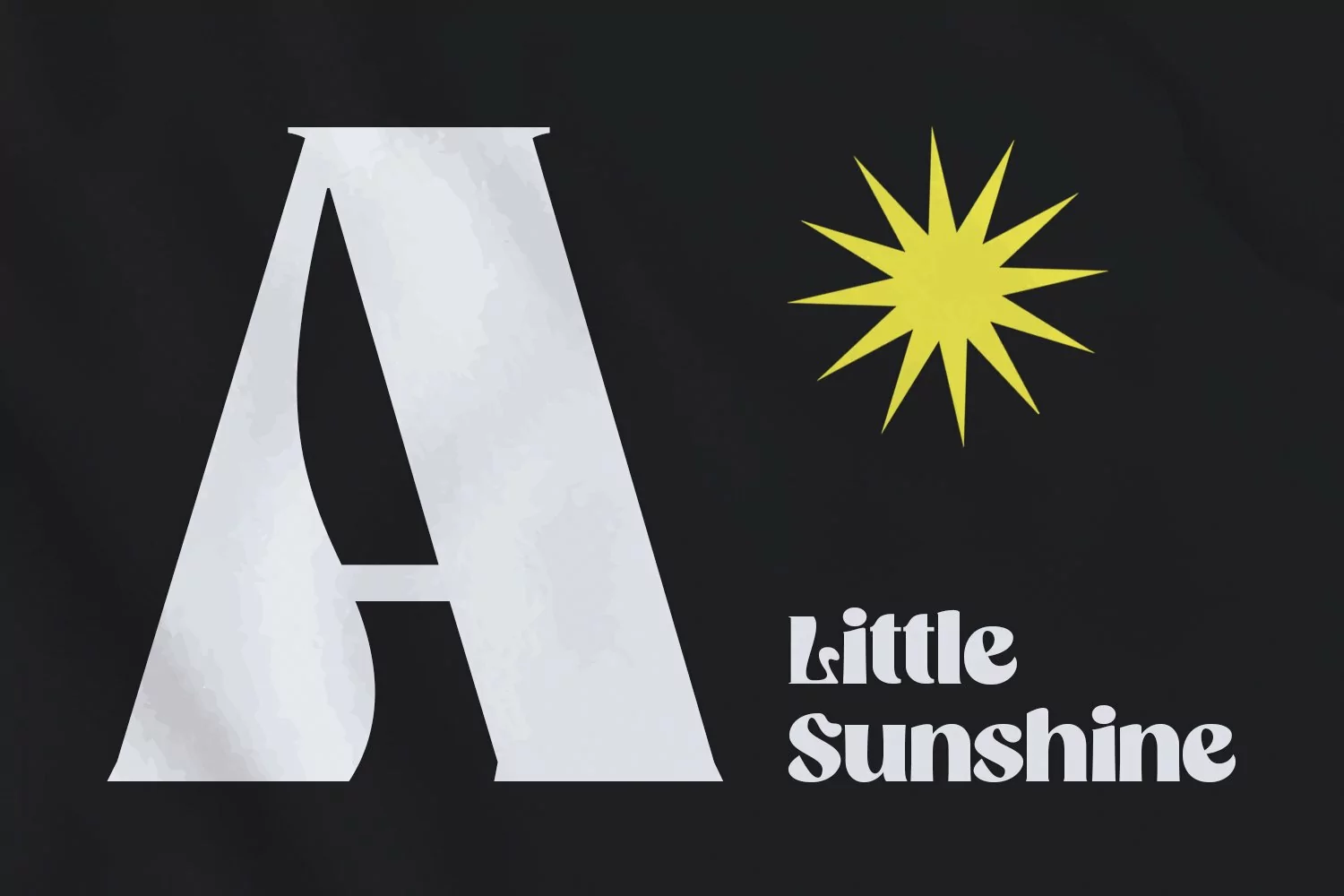
Broukha is a decorative display font. With bold contrast stroke and fun character. To give you an extra creative work. Broukha font support multilingual more than 100+ language. This font is good for logo design, Social media, Movie Titles, Books Titles, a short text even a long text letter and good for your secondary text font with sans or serif. Make a stunning work with Broukha font.